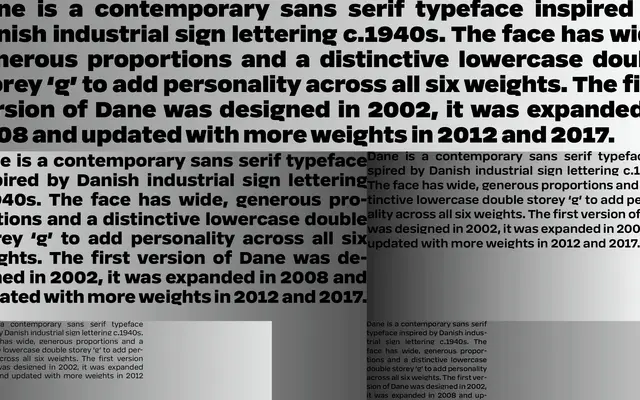
Dane specimen from A2-Type
A sans-serif rooted in Danish industrial sign lettering of the 1940s, with wide proportions and a double-storey 'g' across six weights.
Originally designed in 2002 and expanded through several rounds of development up to 2017, Dane draws on the utilitarian lettering found on Danish industrial signage from the mid-twentieth century. Wide, generous proportions give it a confident presence at display sizes, while the double-storey lowercase 'g' adds a humanist note that distinguishes it from more neutral grotesques. Six weights from Light to Extrabold make it workable for branding and identity projects where some typographic character is wanted without heavy stylisation.
A contemporary sans-serif drawn from Danish industrial sign lettering of the 1940s, with wide proportions and humanist detailing such as the double-storey 'g' placing it within the grotesque tradition.